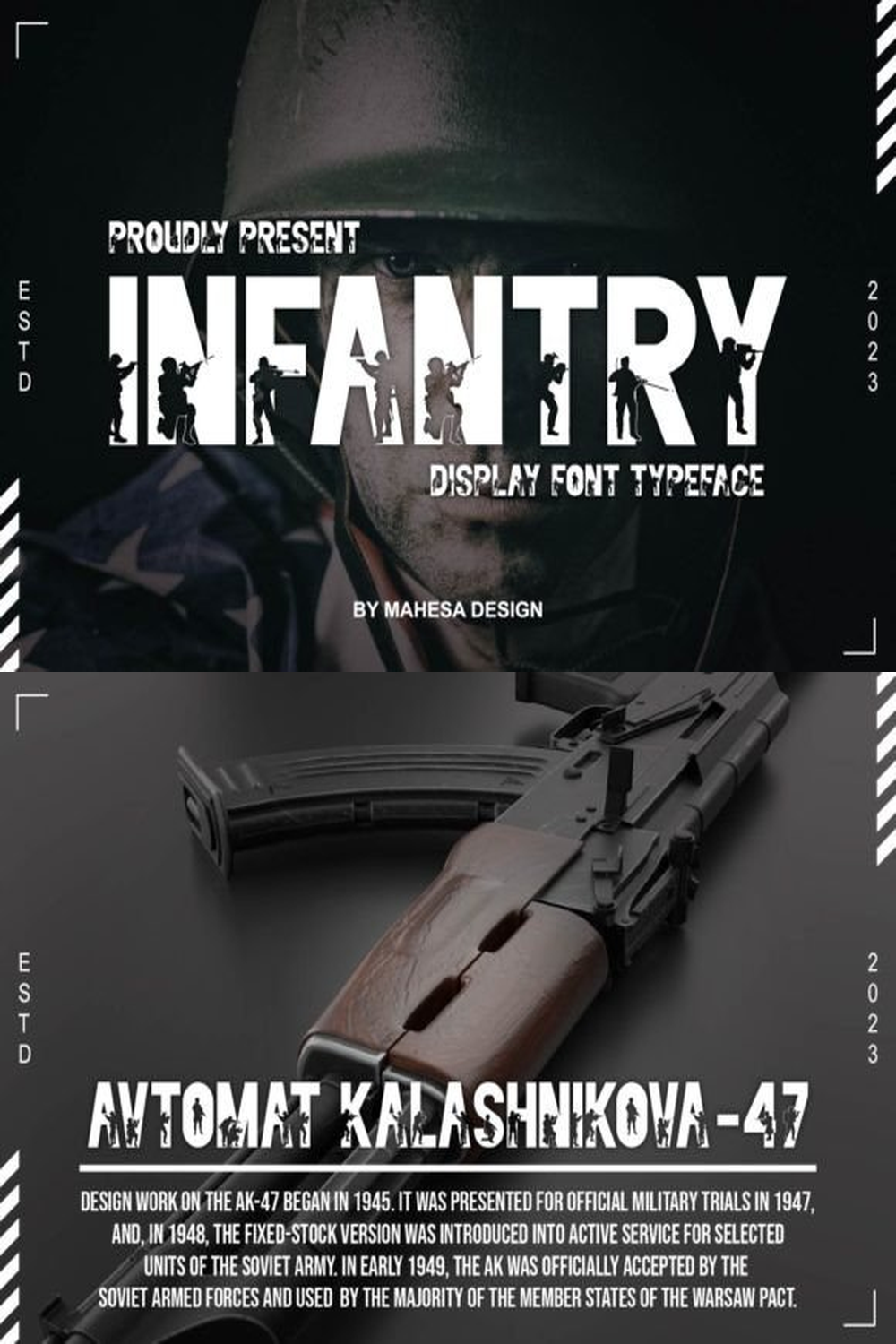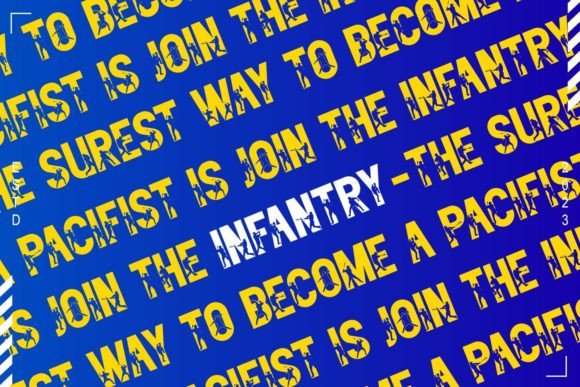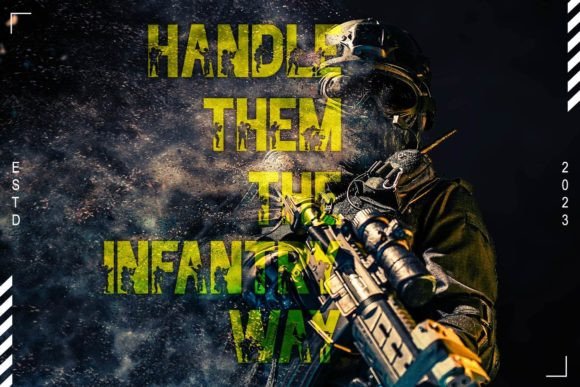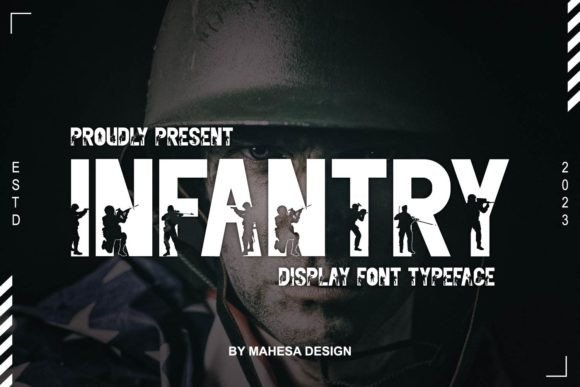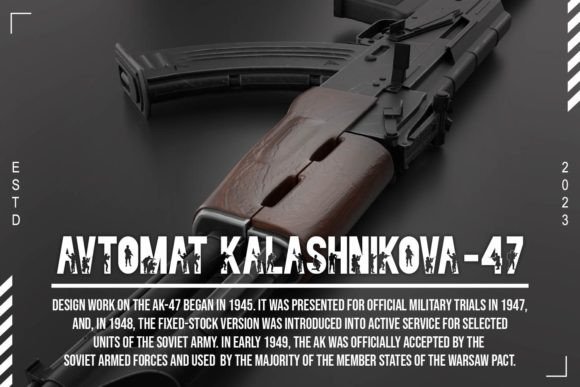
Infantry Font: A Bold Display Font for Military-Themed Design
About the Infantry Font
From logos to headlines, the Infantry Font is the perfect choice for making a lasting impression. Infantry is a unique display font that features silhouettes of infantry in every letter, making it perfect for military-themed designs. This font is perfect for posters, flyers, and other designs that require a strong and bold typeface. With the bonus vector silhouettes of infantry included you can easily create striking designs with a military edge. Whether you’re designing for a military organization or just looking to add some edge to your designs, Infantry is the perfect font for you. Get it now and take your designs to the next level.